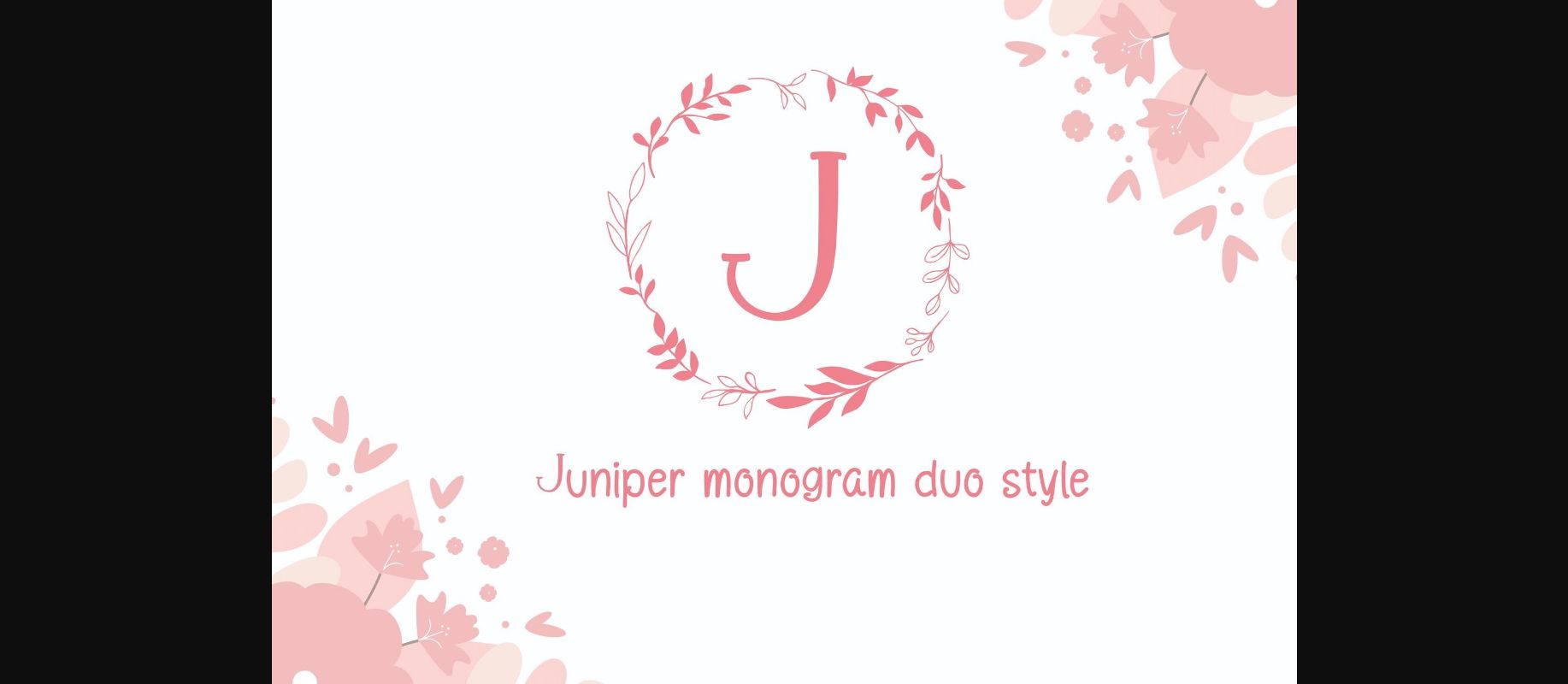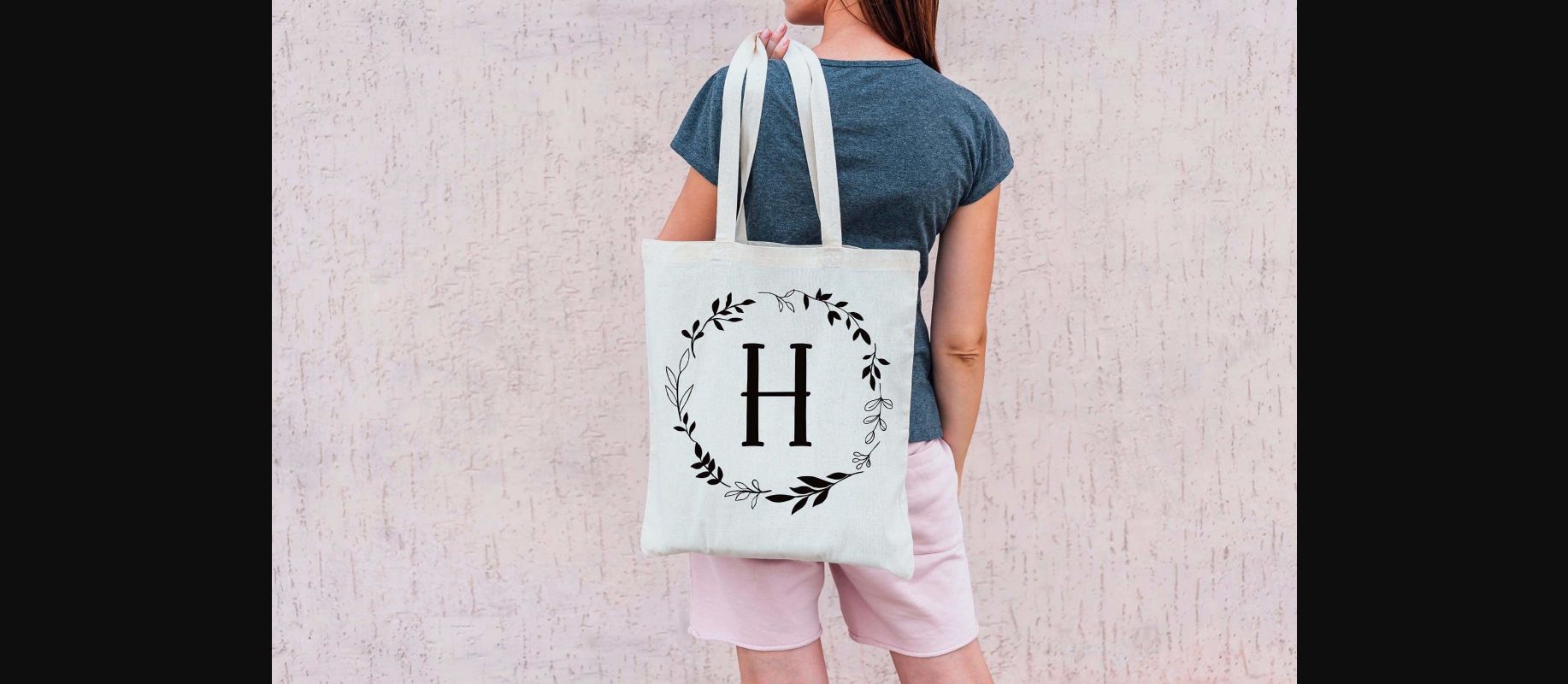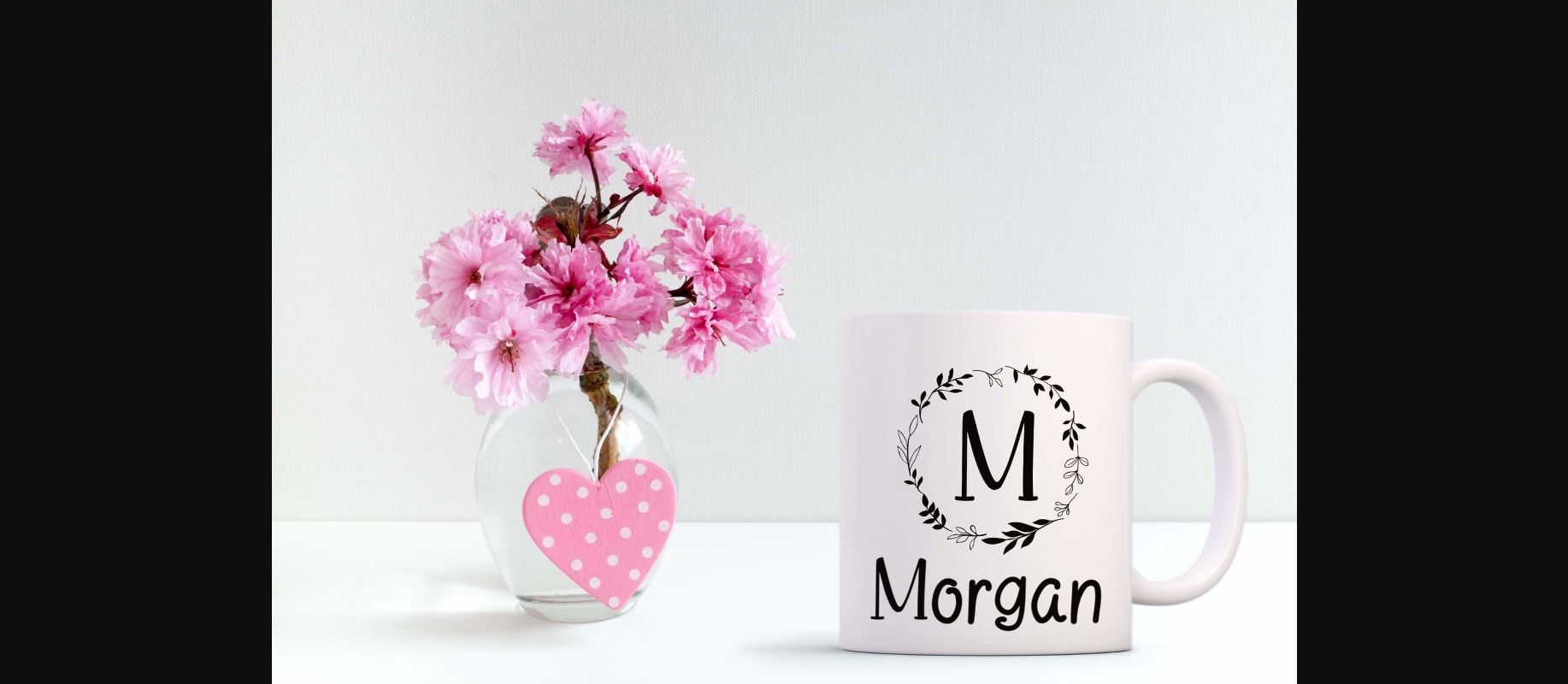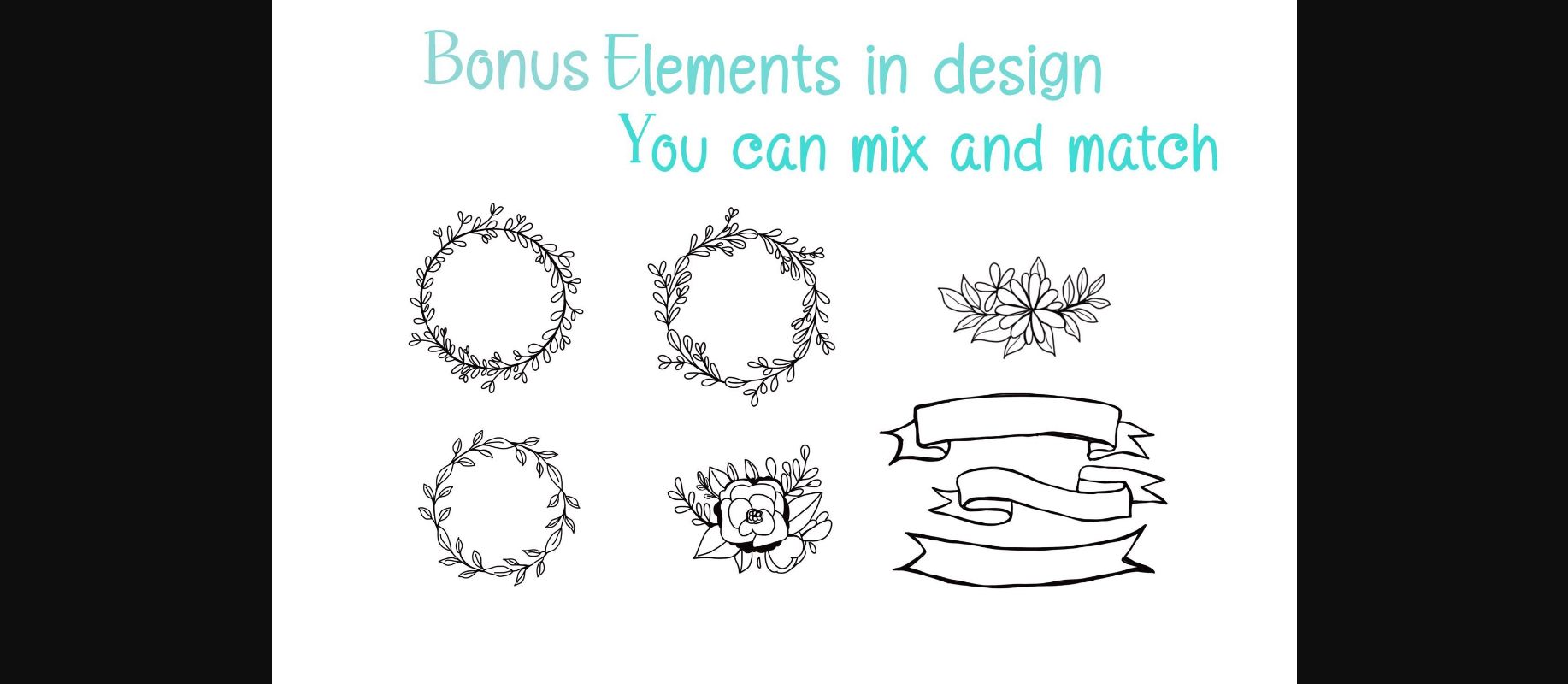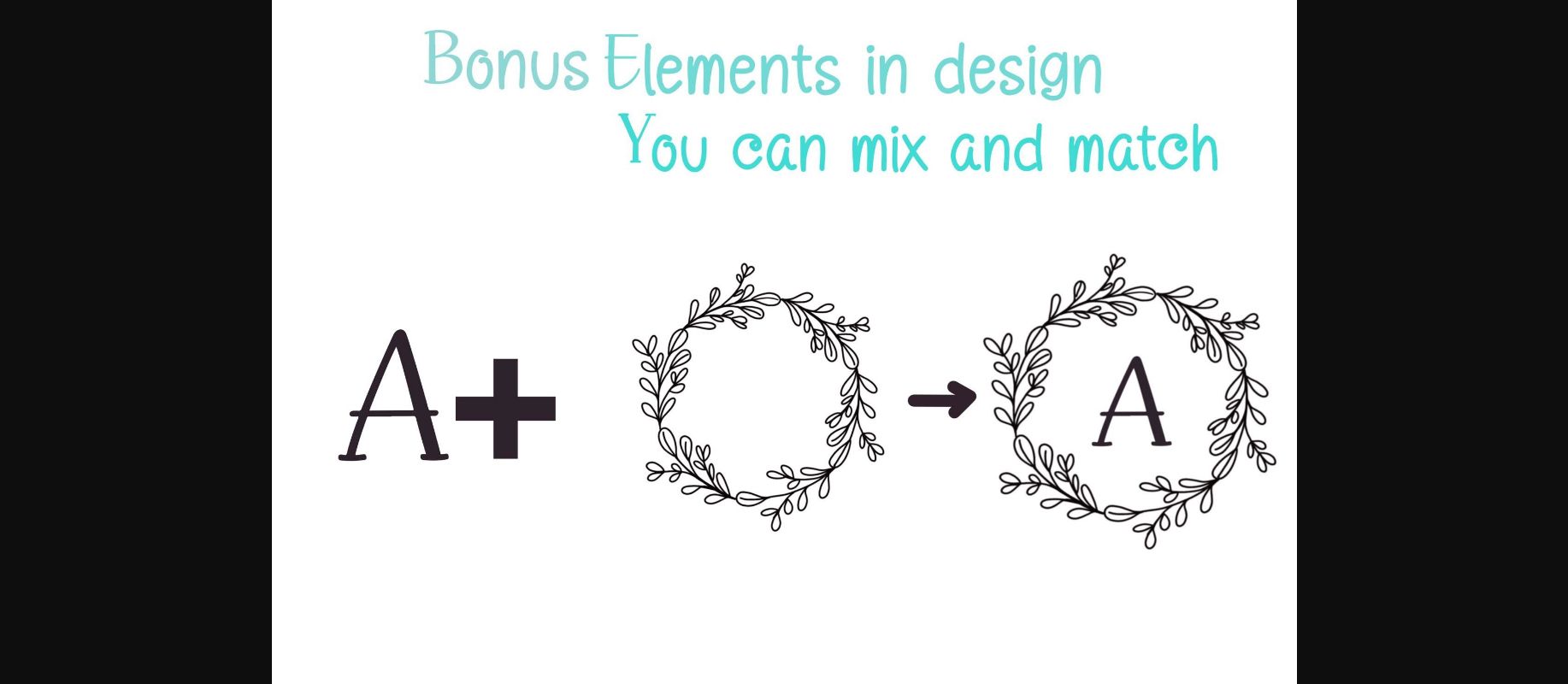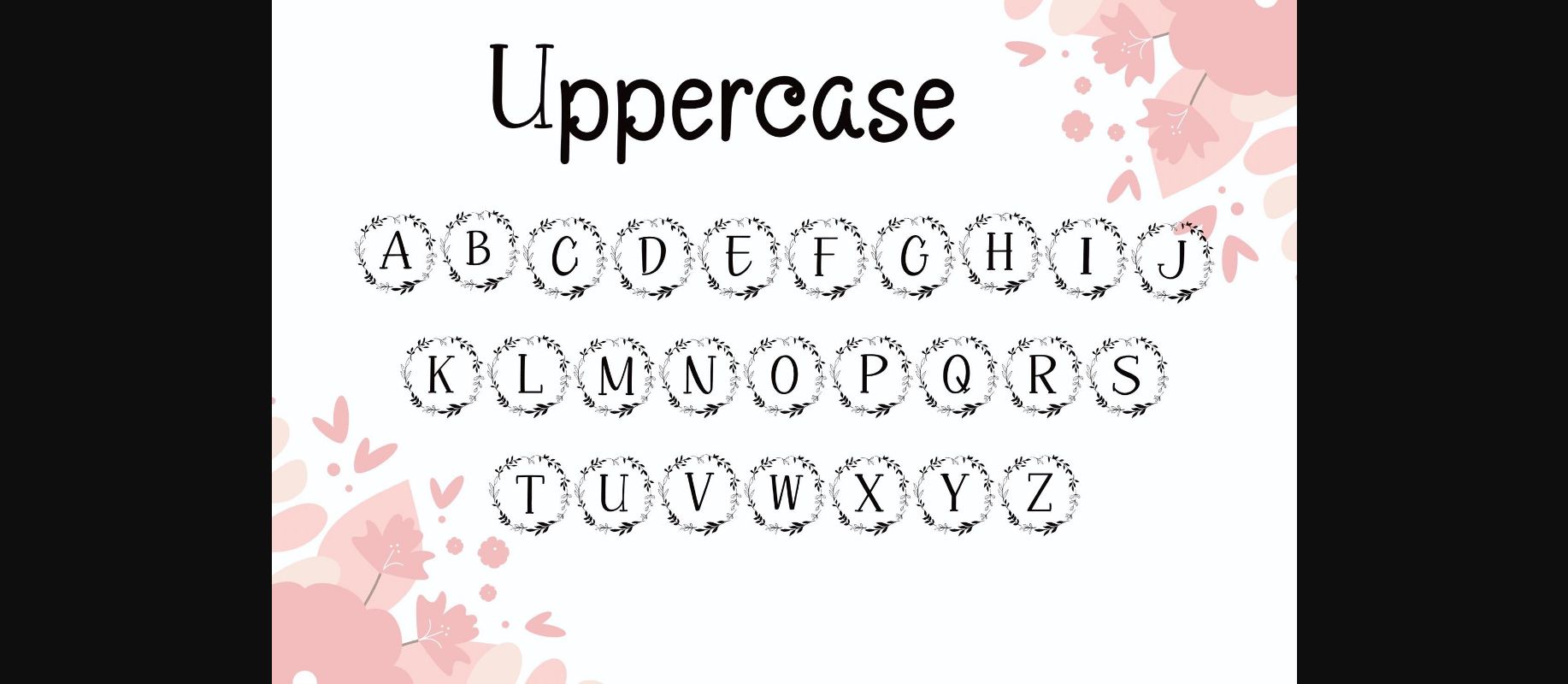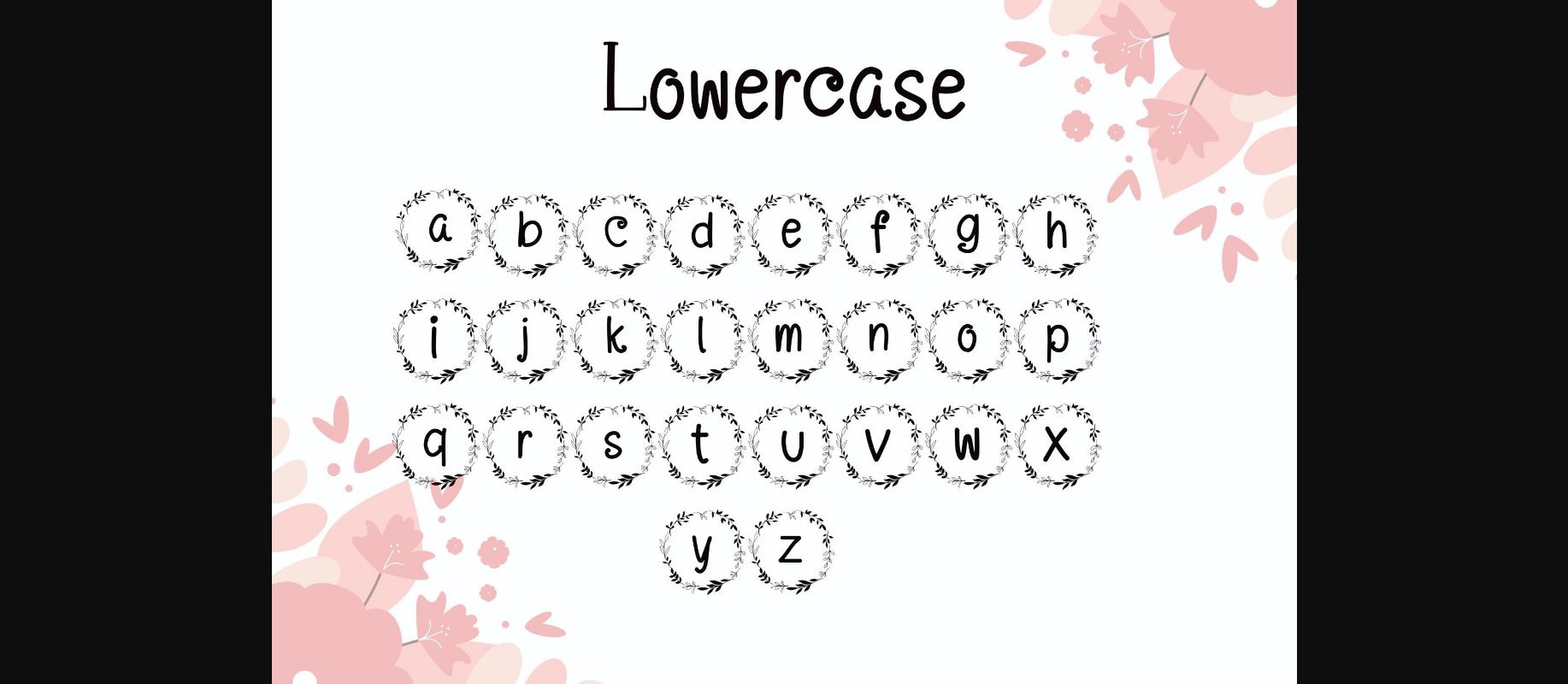
Juniper Font
About Juniper Font
Juniper is a lovely duo font (decorative and serif).Together or apart, these fonts are ideal for adding a chic and cheery touch to your crafts.